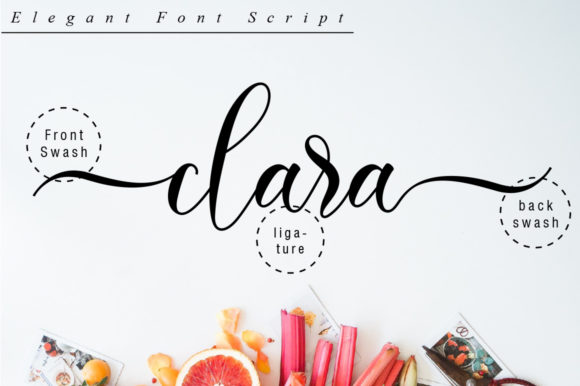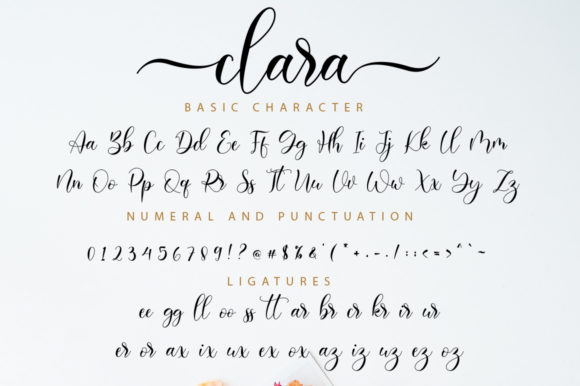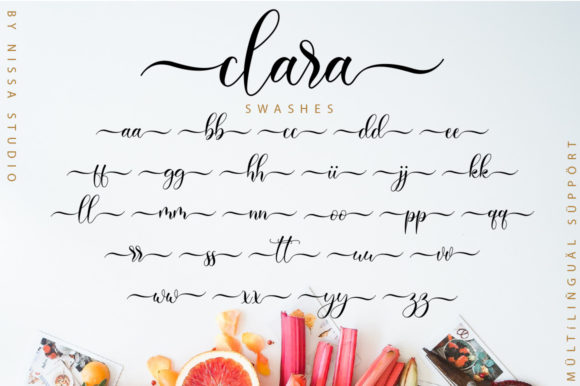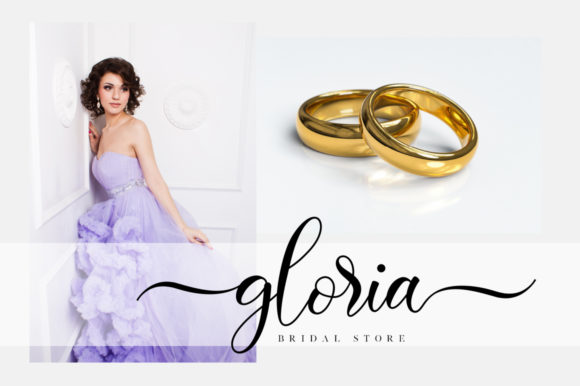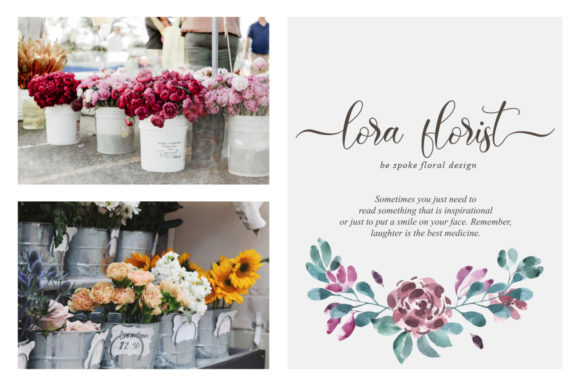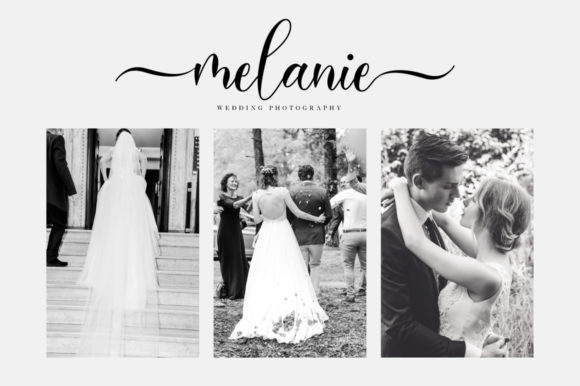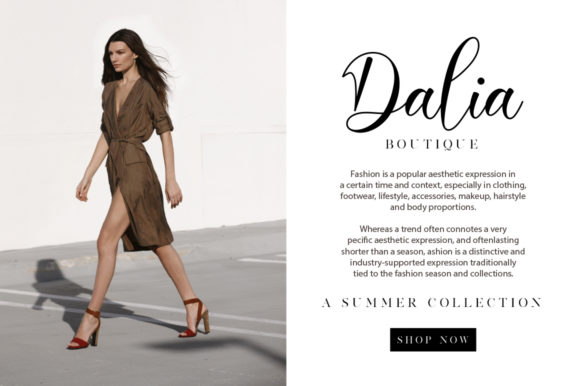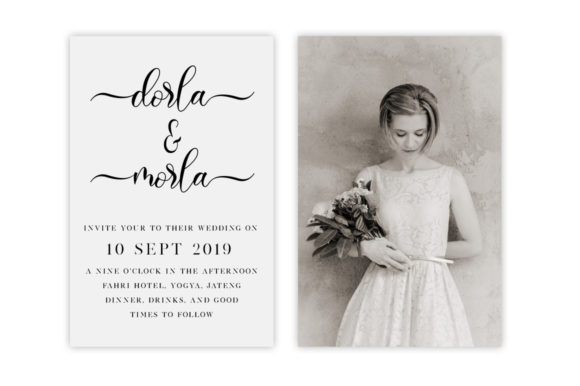
Clara Font
About Clara Font
Clara is a beautiful script font that is classy, elegant, and modern. It will add a romantic touch to any crafting project!